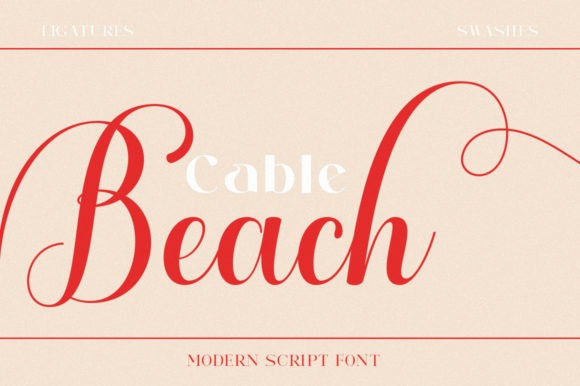
Cable Beach Font
Cable Beach Script Font is an elegant calligraphy font, featuring a casual and pretty vibe.
It can be used for various purposes, such as logos, product packaging, wedding invitations, branding, headlines, signage, labels, signatures, book covers, posters, quotes and more. This font is PUA encoded which means you can access all of the glyphs and swashes with ease!